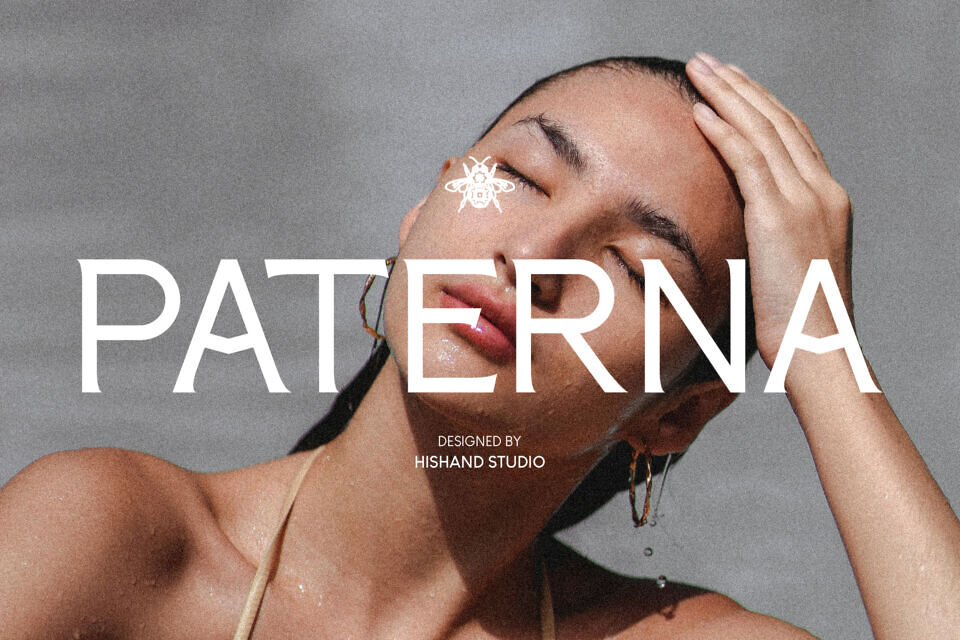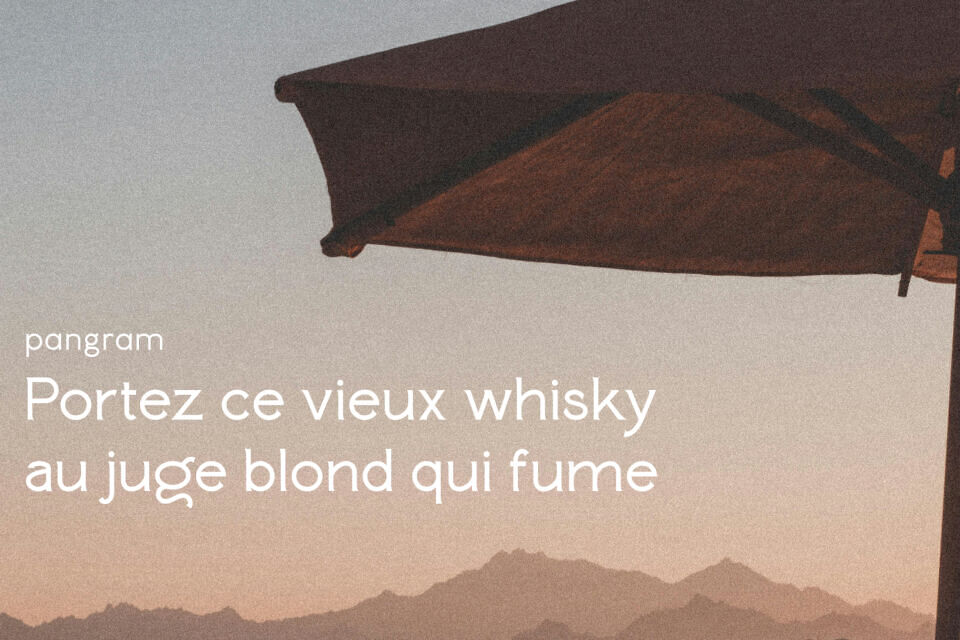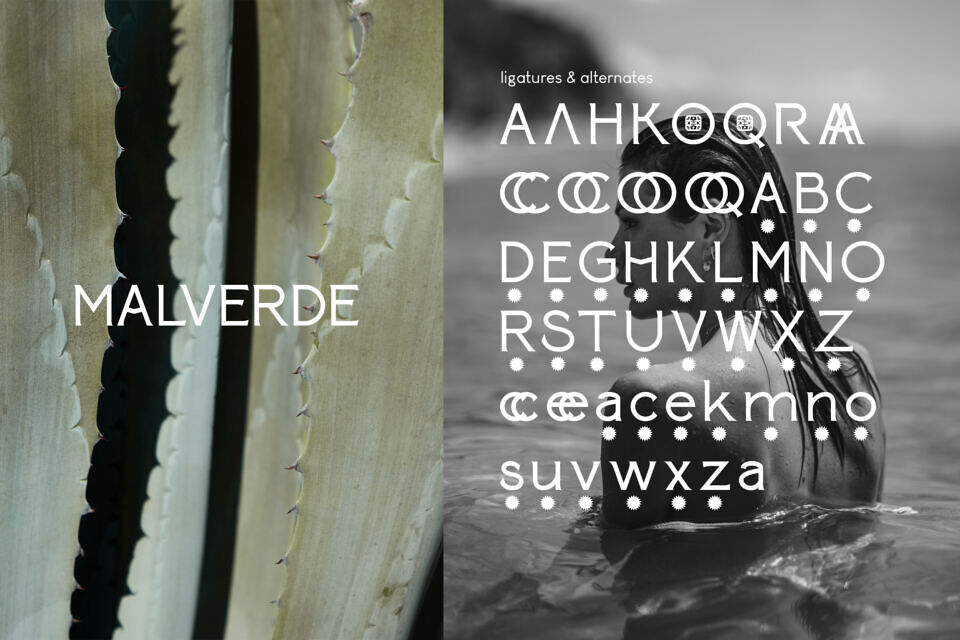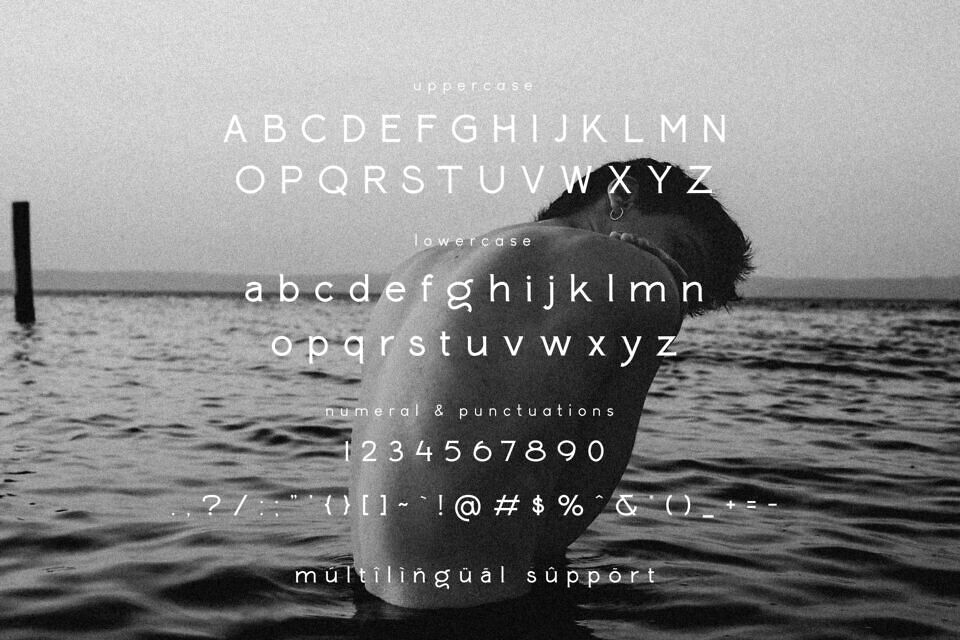
Paterna is a serif display font that exudes effortless elegance and refined sophistication, making it an exceptional choice for designers who want to elevate their visual projects with a luxurious aesthetic.
Crafted with meticulous attention to detail, Paterna blends the timeless beauty of classic serif typography with a fresh, modern sensibility. The result is a typeface that feels both traditional and contemporary, rich in character yet clean and polished.